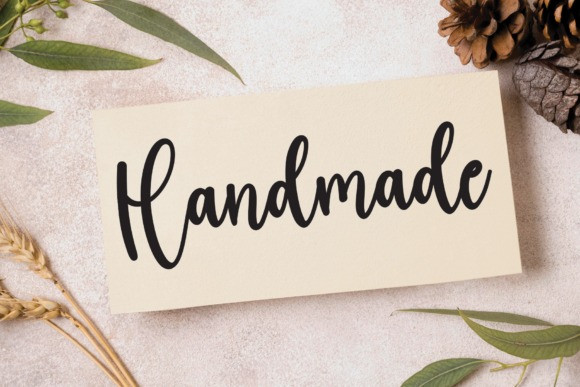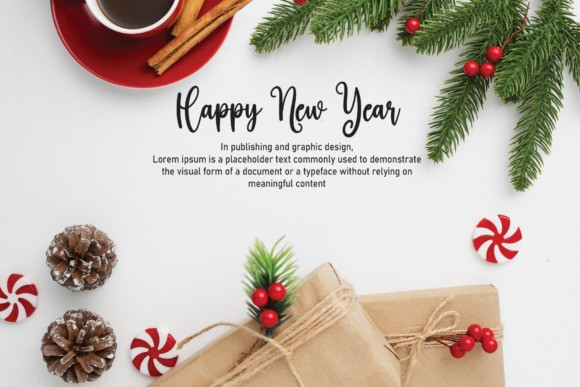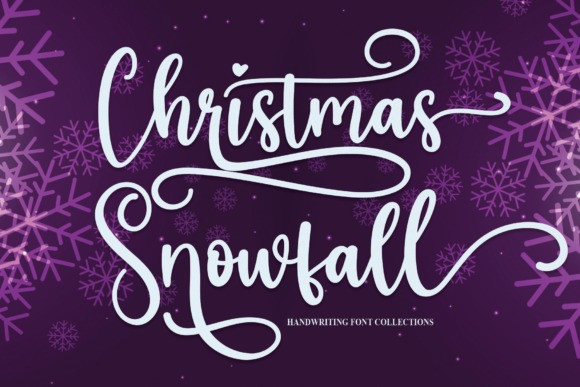
Christmas Snowfall Font
Christmas Snowfall Font is a magical and stylish handwritten font suitable for wall displays, wedding invitations, social media post logos, advertisements, product packaging, product designs, labels, photography, watermarks, invitations, stationery, and many other creative projects!